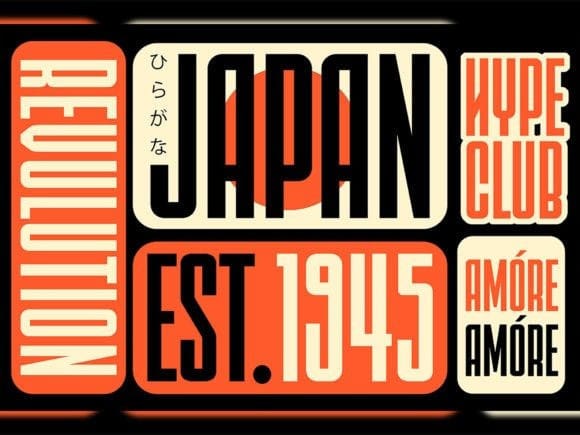
Birmingham Sans Font
Birmingham Sans Font, a simple and sans serif font. So perfect for you who needs a typeface for logo designs, magazine, social media, brochure, and many more.